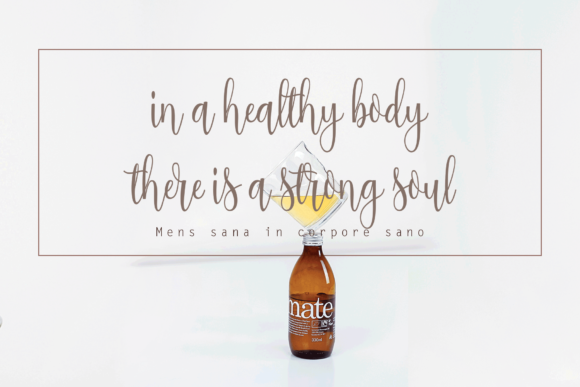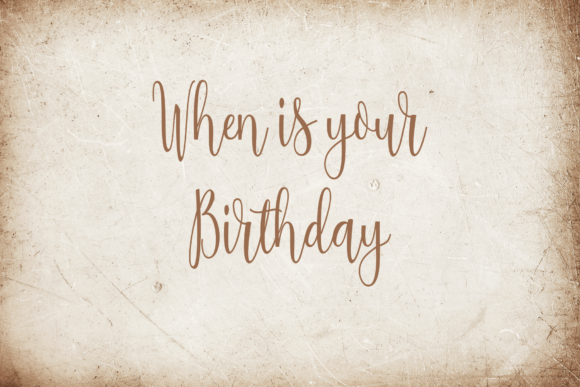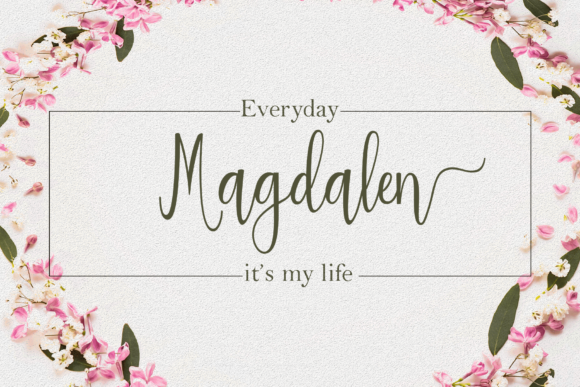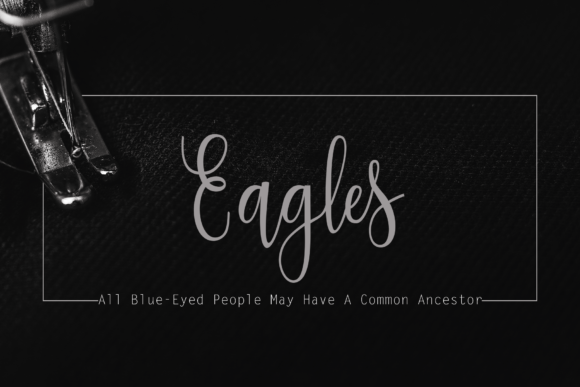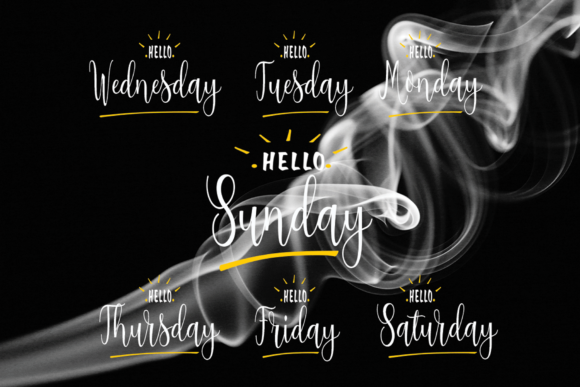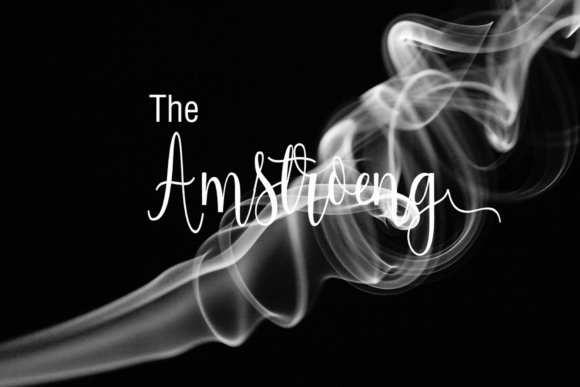
Introduction to Salwa Font
As a designer, have you ever found yourself stuck in a creative rut, searching for the perfect font to elevate your project? I’m sure you’ve been there, scrolling through endless options, only to end up with something that just doesn’t quite fit the vibe. But what if I told you that there’s a game-changing calligraphy font that’s about to revolutionize your design process?
Meet the Salwa Font, a stunning creation by RT Creative 86 that’s taking the design world by storm. This high-quality font is more than just a pretty face – it’s a valuable resource for designers looking to add a touch of sophistication and elegance to their projects. With its transparent background and crisp, clean lines, Salwa Font is the perfect addition to any design arsenal.
Key Features of Salwa Font
- Unique characteristics include a delicate, handwritten style and a subtle flair, making it perfect for adding a personal touch to designs.
Honest Review: Salwa Font
As a designer, I’m always on the lookout for high-quality design resources that can elevate my creative projects. Recently, I came across the Salwa Font, and I must say, it’s a great addition to any design arsenal.
Here are some of the things that work well for me: ✨
- Unique and elegant design style
- High-quality vectors and illustrations
- Transparent background, making it easy to customize and layer
However, there are some limitations to consider: ⚠️
- Limited character set, which may not be suitable for long-form text
- No bold or italic variants, which can make text difficult to read in certain contexts
Overall, I’m impressed with the Salwa Font. Its unique design style and high-quality vectors make it a great resource for designers working on creative projects. While it may have some limitations, I believe it’s a solid choice for designers looking for a versatile and stylish font.
Tips for Getting the Most Out of Salwa Font
Use Salwa Font on a transparent background to create a clean and minimalist design. Experiment with different font sizes and colors to add visual interest to your project.
Salwa Font is perfect for creating invitations, brochures, and social media graphics. Its high-quality design makes it an ideal choice for creative projects that require a professional touch.